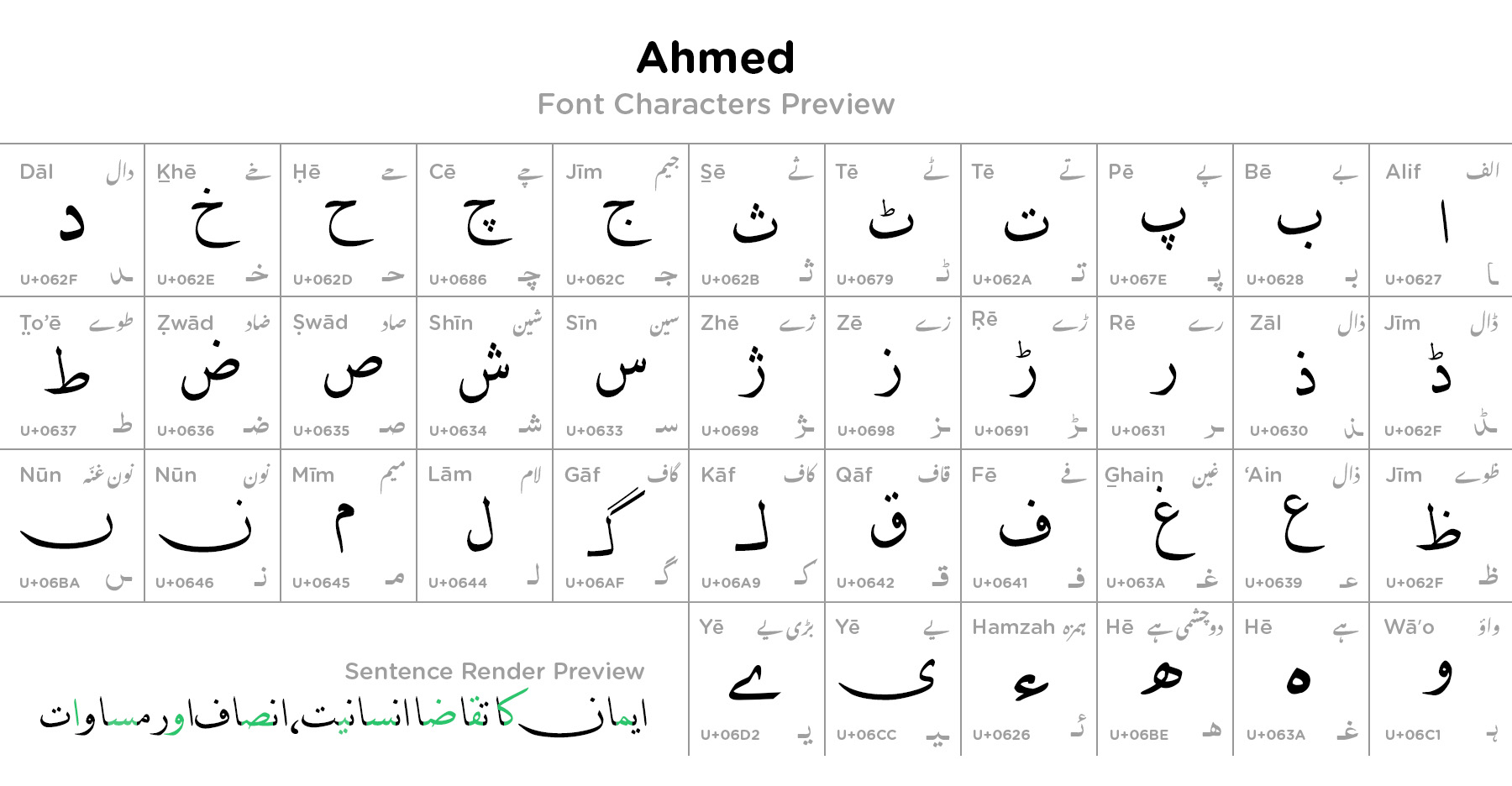
Ahmed is a TrueType Arabic font, designed by Syed Manzar Hasan Zaidi and is known for its elegant appearance. It is a modern interpretation of Naskh script and was released under the copyrights of Axis SoftMedia Pvt. Ltd., Mumbai, India, in 2008. It has vast character set of 445 and 498 number of glyphs, giving enough room for design and compatibility with various languages including Arabic, Urdu, Persian, and more. It has a unique look with elongated letterforms and smooth corners. Spacing between the letters is constant; however, the thickness is contrasting, varying across edges and middle. Moreover, Ahmed is compatible with many latest Unicode blocks including Basic Latin, Arabic, General Punctuation, Currency Symbol, among others, which increases its appeal to designers. Although it presents a clean look, these subtle design elements add an overall depth and interest to your text. Ahmed is perfect for the projects where emphasis and elegance are needed side by side such as invitations, formal documents, signage, and more. However, it is only available in regular font weight which kind of limits its usability.